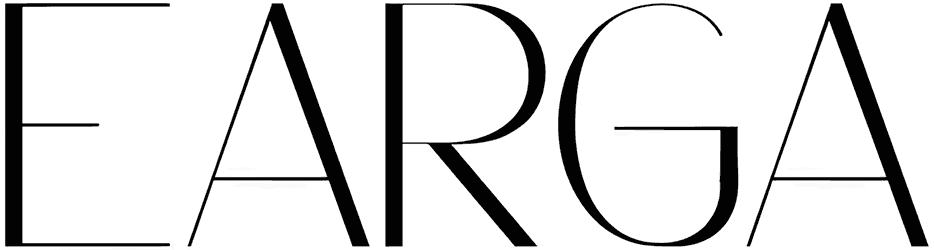
Northern Worssley Font
Northern Worssley here everyone! A clean, luxury sans serif font that is full of elegance and style. That said, it can play big on your logotypes and branding projects. Of course, there are more areas where you can use it. Note that Northern Worssley does not support lowercase letters. That would be the only downside of this modern fashion font we suppose!
Designed by: Typetemp Studio